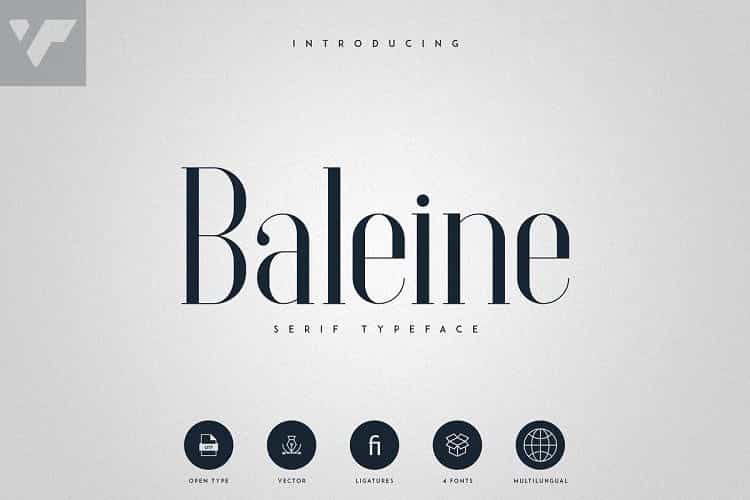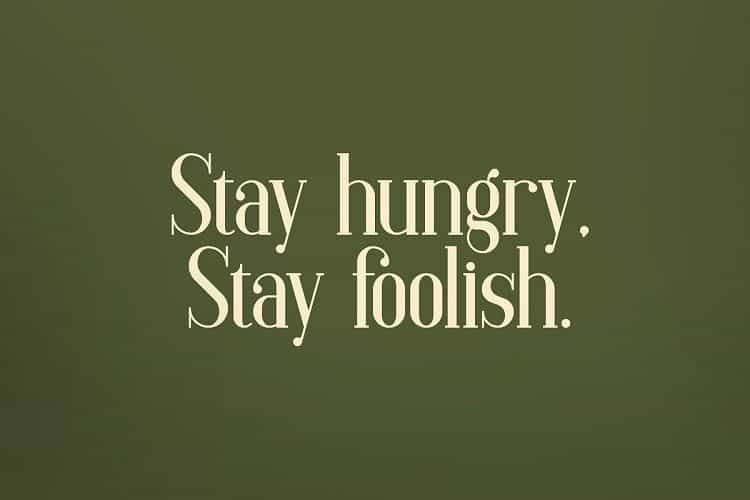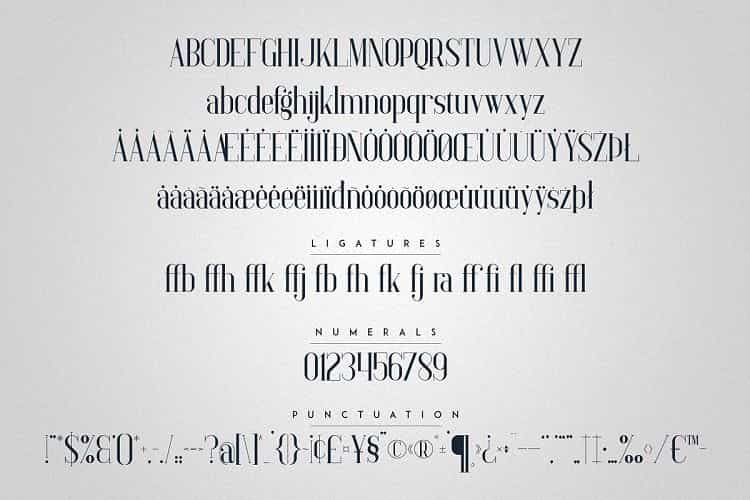
The Baleine font is vintage, elegant and it has 4 weights, ligatures and multilingual support. It is a very flexible font that can be used in big and small sizes. Baleine is just perfect for branding projects, home-ware designs, product packaging, magazine headers or as a stylish text overlay to any background image.